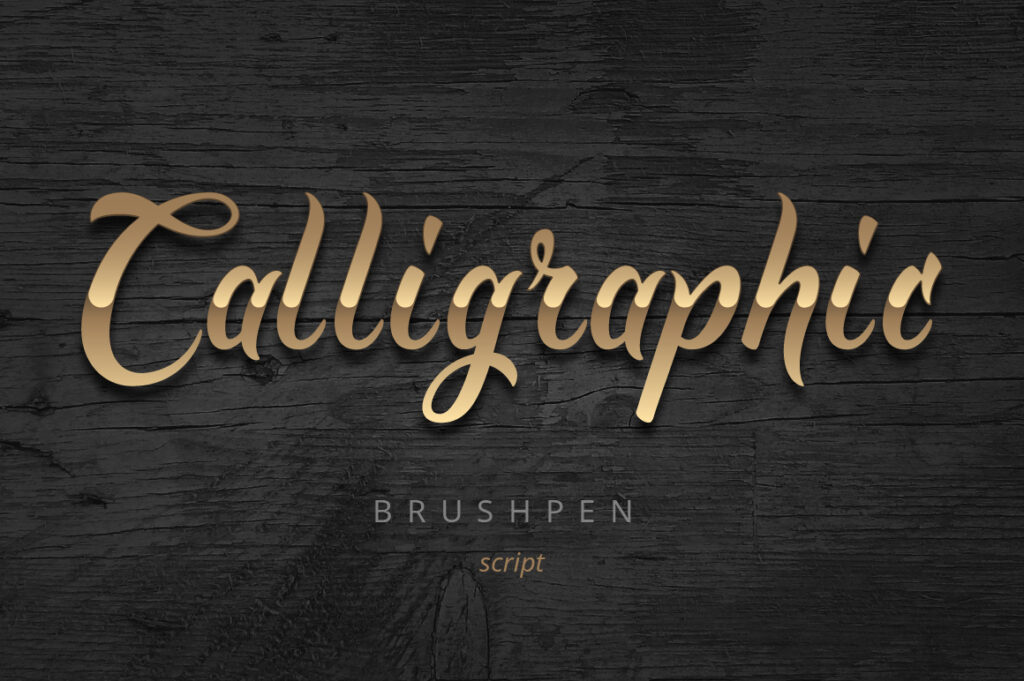
Introducing the Golden Brush Font: Elevate Your Designs with Handmade Calligraphy
The world of typography is vast and diverse, with numerous font styles to choose from, each with its unique characteristics and uses. Among these, handmade calligraphy fonts hold a special place, offering a touch of elegance and sophistication to any design project. One such font that has garnered attention for its beauty and versatility is the Golden Brush Font. This article aims to provide an in-depth look at the Golden Brush Font, exploring its features, benefits, and how it can be effectively used in design projects.
What is Golden Brush Font?
Golden Brush is a handmade calligraphy font that offers a beautiful pair of fonts designed to create a unique highlight look and feel when combined. The essence of this font lies in its ability to be layered, allowing designers to achieve a stunning effect by overlaying the two fonts and applying different colors. This feature is particularly useful for creating eye-catching headings, titles, and quotes that stand out.
Key Features of Golden Brush Font
- Handmade Calligraphy: The font is crafted with precision and care, giving it a personal touch that is hard to replicate with digital fonts.
- Pair of Fonts: Golden Brush comes with two complementary fonts that can be layered to create a highlight effect.
- Easy to Use: The fonts are designed to be user-friendly, making it simple for designers to achieve the desired effect without requiring extensive design experience.
- Customizable: Designers can easily change the color of one of the fonts when layering, allowing for a wide range of color combinations.
The Highlights Font: Achieving the Shiny Text Effect
A standout feature of the Golden Brush Font is the Highlights font, which contains only the top half of each letter. This design allows for the creation of a shiny text effect, mimicking the look of highlighted text. By layering the Highlights font over the main font and adjusting the colors, designers can achieve a realistic and appealing highlight effect that adds depth and interest to their designs.
Tips for Using Golden Brush Font
- Experiment with Colors: Don’t be afraid to try out different color combinations to find the one that best suits your design.
- Play with Layering: Adjust the layering of the fonts to achieve the desired level of highlighting.
- Pair with Other Fonts: While Golden Brush is beautiful on its own, it can also be paired with other fonts to create interesting and dynamic text compositions.
- Use for Headings and Titles: The font’s unique effect makes it particularly suitable for headings and titles, where you want to grab the reader’s attention.
Benefits of Using Golden Brush Font
The Golden Brush Font offers several benefits that make it a valuable addition to any designer’s toolkit. Its handmade nature gives it a unique and personal feel, while its versatility allows it to be used in a wide range of projects, from elegant wedding invitations to bold marketing materials.
- Elegance and Sophistication: Adds a touch of class to any design.
- Versatility: Can be used in various design projects, from digital to print.
- Easy to Use: Simple to incorporate into designs, even for those with limited design experience.
- Customization: Offers a high level of customization through layering and color changes.
Who Can Benefit from Golden Brush Font?
The Golden Brush Font is a versatile tool that can benefit a wide range of users, including:
- Graphic Designers: Looking for unique fonts to add to their portfolio.
- Marketers: Needing eye-catching text for promotional materials.
- Event Planners: Creating invitations, menus, and other event materials.
- Small Business Owners: Wanting to add a personal touch to their branding and marketing.
The Golden Brush Font is a beautiful and versatile handmade calligraphy font that offers designers a unique tool for creating stunning text effects. Its ability to be layered and customized makes it particularly useful for adding highlights and interest to designs. Whether you’re a seasoned designer or just starting out, Golden Brush Font can elevate your designs, adding a touch of elegance and sophistication. With its ease of use and wide range of applications, it’s an excellent choice for anyone looking to enhance their typography and make their designs stand out.
Incorporating the Golden Brush Font into your design projects can open up new creative possibilities, allowing you to experiment with unique text effects and styles. Its handmade nature and the ability to achieve a shiny highlight effect make it a valuable asset for designers seeking to add a personal touch to their work. As the world of design continues to evolve, having access to such versatile and beautiful fonts is essential for staying ahead of the curve.